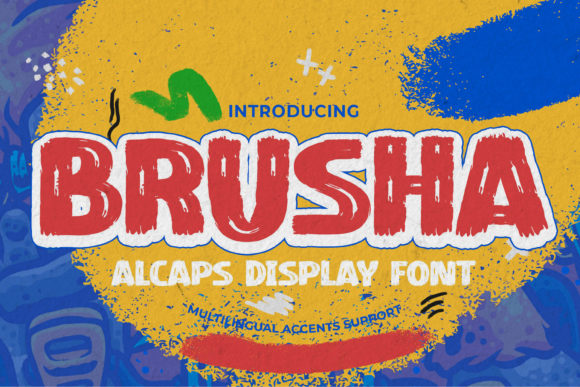
When the world is full of noise, you need to find a way to stand out and scream your message from the rooftops. That's where Brusha Font comes in. This bold and assertive display font is the perfect way to make your words pop, whether you're creating posters, social media graphics, or anything else that needs a touch of personality.
Brusha Font is all about making a statement. With its thick, blocky letters, it's impossible to ignore. But it's not just about being loud—Brusha Font is also incredibly stylish. The brushed texture gives it a unique and sophisticated look that will make your designs stand out from the crowd.
"I love the brushed texture of Brusha Font. It gives my designs a unique and sophisticated look." - John D.